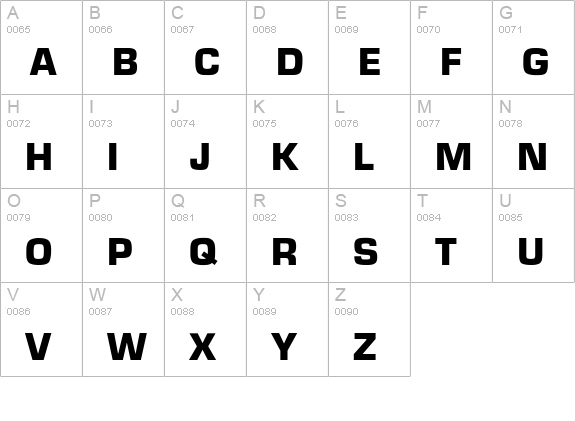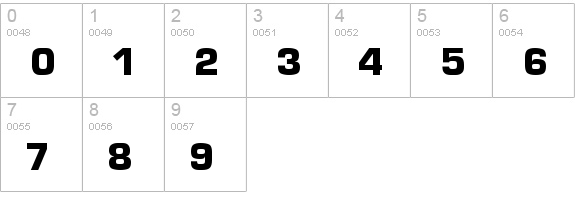
Eurostile-Black-DTC is a maximum-weight, dramatic variant in the Eurostile typeface family \xE2\x80\x94 well suited to maximum-impact headlines, posters, and packaging.
Eurostile-Black-DTC is a modern and bold typeface that exudes strength and sophistication. Its sleek design and clean lines make it a perfect choice for creating impactful headlines and eye-catching graphics. The Eurostile-Black-DTC font is versatile and can be used in a variety of design projects, from advertising materials to branding elements. Best of all, this fantastic font is available for free download at FontsMarket.com. With just a few clicks, you can add the Eurostile-Black-DTC font to your collection and start using it in your projects right away. Don't miss out on this opportunity to enhance your designs with this stylish and powerful typeface. Download Eurostile-Black-DTC today and take your design game to the next level!